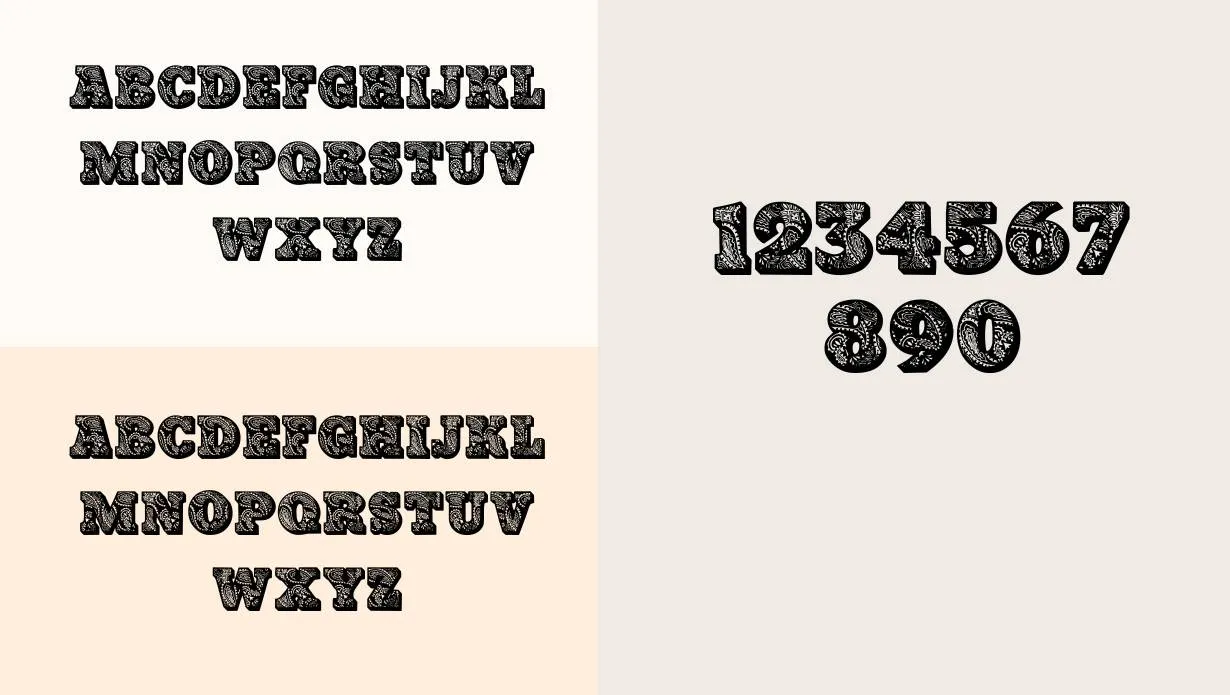
Paisley Caps Font is decorative and artistic. Its ornate and detailed letters bring a sense of creativity and flair to any text. This font often comes in TTF and OTF file formats, ensuring ease of use in various design programs.
It’s often seen in designs that require a unique and ornamental touch, adding a sense of artistry and detail to the text. Its intricate appearance adds a touch of sophistication, making the text look stylish and eye-catching. To achieve a design that stands out and captures attention, utilize this font in conjunction with the bosox font.